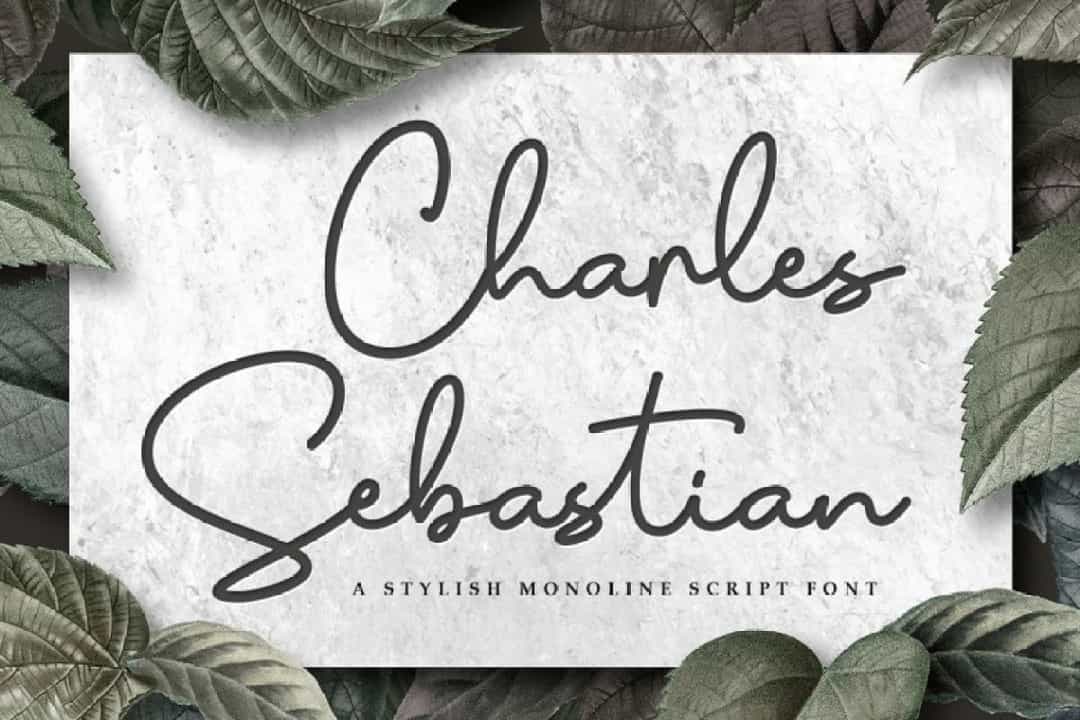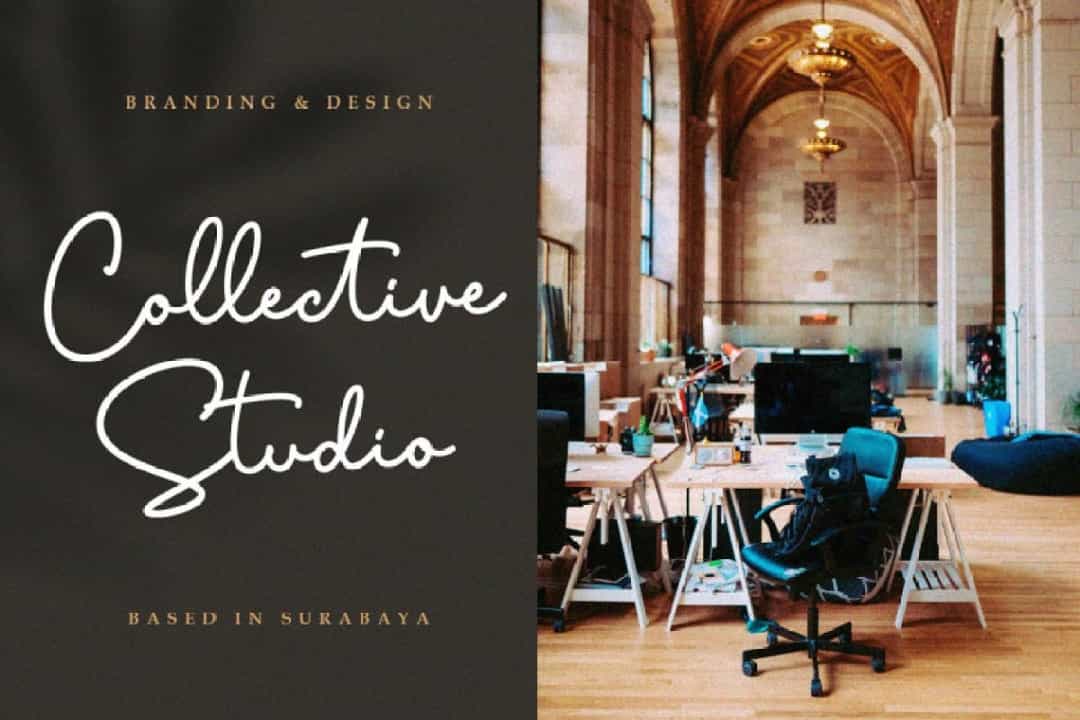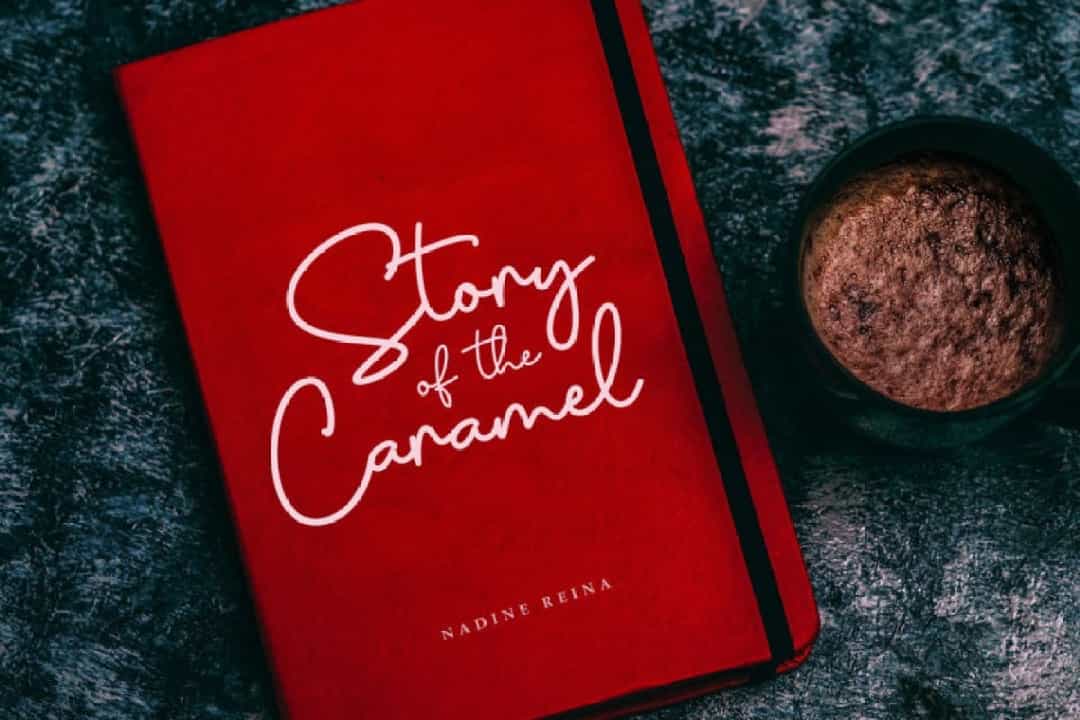
Charles Sebastian is a sophisticated handwritten script font for generating beautiful and fashionable designs or enhancing the look of any piece of work. They give the impression of handwriting, which makes them look more natural; ideal for giving your designs that sophisticated touch.